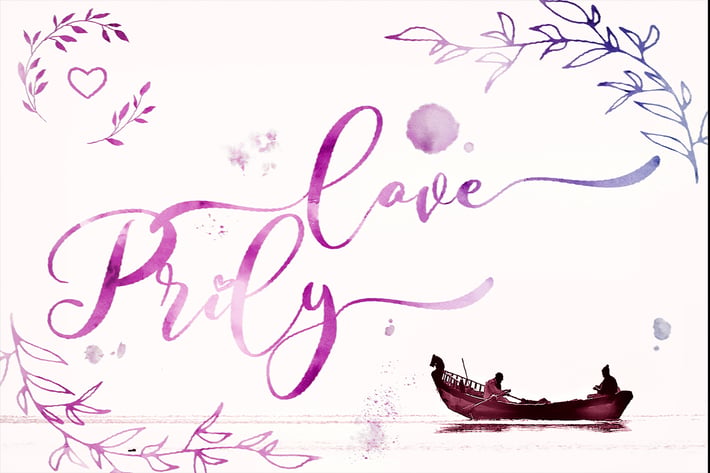
Love Prilly - Valentines Script Font
Love Prilly is a romantic handwritten font. with characters that dance along with the baseline and cursive handwritten font. It has beautiful and well-balanced characters and as a result, it matches a wide pool of designs. Add it to your most creative ideas and notice how it makes them come alive!
Stylish modern handwritten script
Beautiful Swash (Ending tail)
Beautiful Titling (Beginning tail)
Special Ligatures